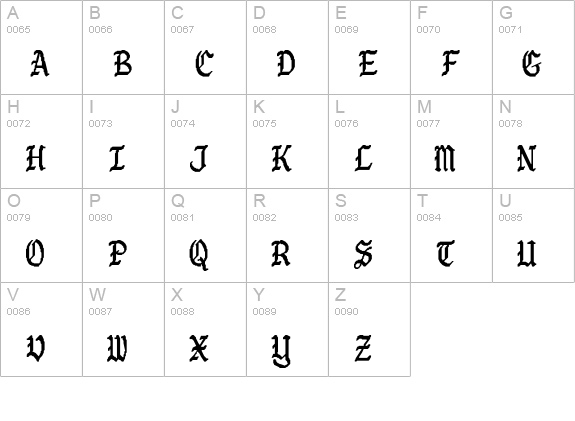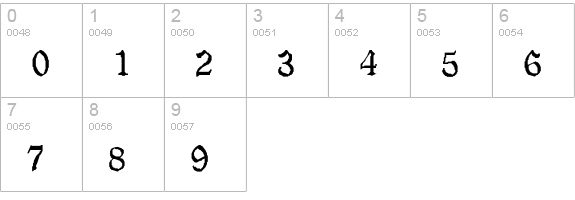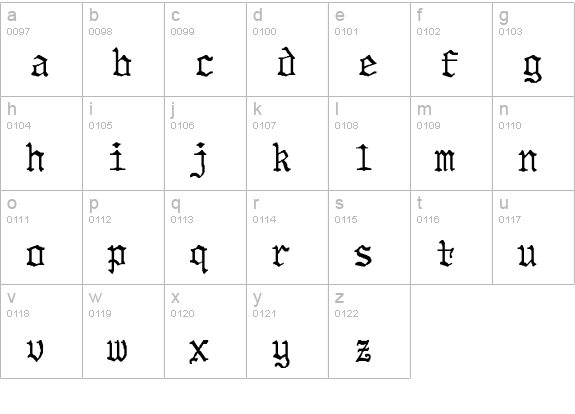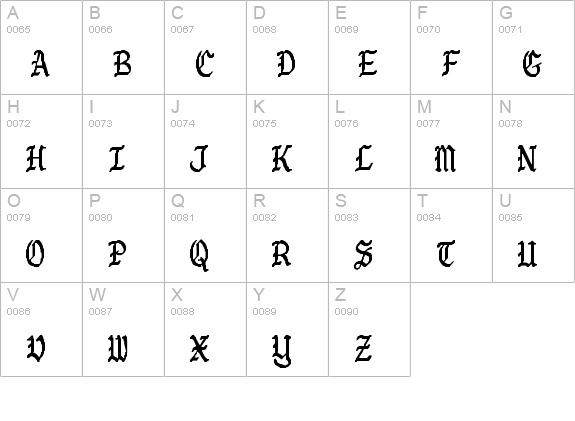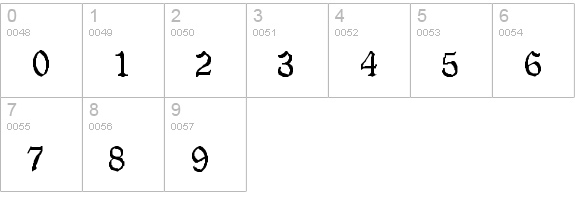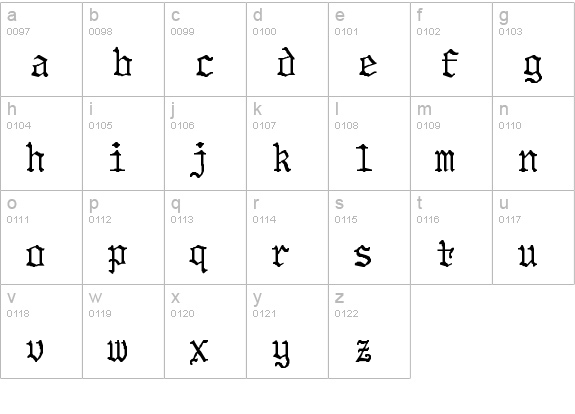
OldeWorld-Bold Font Details
OldeWorld-Bold is a strong, high-contrast variant in the OldeWorld typeface family \xE2\x80\x94 well suited to headlines, attention-grabbing titles, and strong calls-to-action.
Introducing OldeWorld-Bold, a font that combines vintage charm with a bold, modern twist. This typeface captures the essence of an era gone by, evoking a sense of nostalgia and elegance. With its intricate and ornate letterforms, OldeWorld-Bold is perfect for adding a touch of sophistication to any design project. What sets OldeWorld-Bold apart is not just its stunning aesthetics, but also its versatility. Whether you're designing a logo, branding materials, invitations, or even a website, this font will bring a timeless elegance to your work. And the best part is, OldeWorld-Bold is absolutely free! That's right, you can freely download this font at FontsMarket.com. We believe that great design should be accessible to everyone, and that's why we are thrilled to offer OldeWorld-Bold as a complimentary resource for designers, enthusiasts, and creatives alike. So why wait? Download OldeWorld-Bold today and elevate your designs to new heights. Let this font transport you to a bygone era while making a bold statement in the present. The possibilities are endless with OldeWorld-Bold.